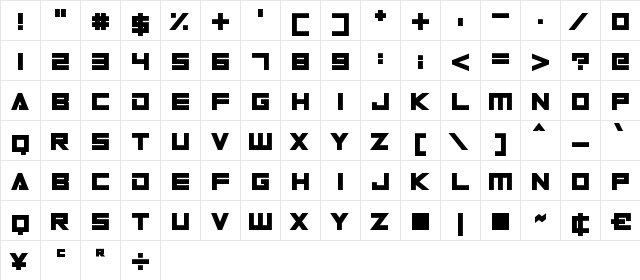
Digital Dare Regular
| Designer | Darrell Flood |
Design Context for Digital Dare Typeface
Digital Dare channels digital-age aesthetics through its sharp, structured letterforms — ideal for brands that want to signal innovation.
Pro Tip: Use Digital Dare in combination with a neutral sans for body text. Let it define the brand voice in headlines while keeping reading comfortable elsewhere.